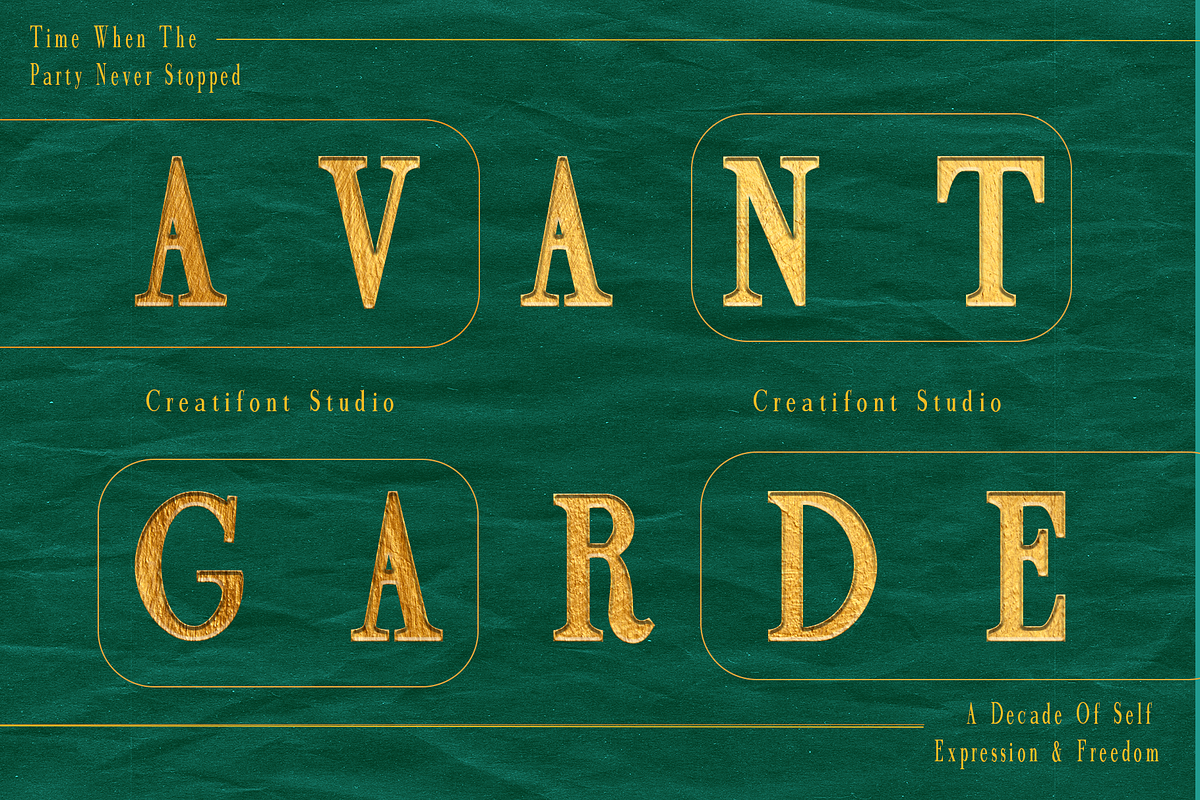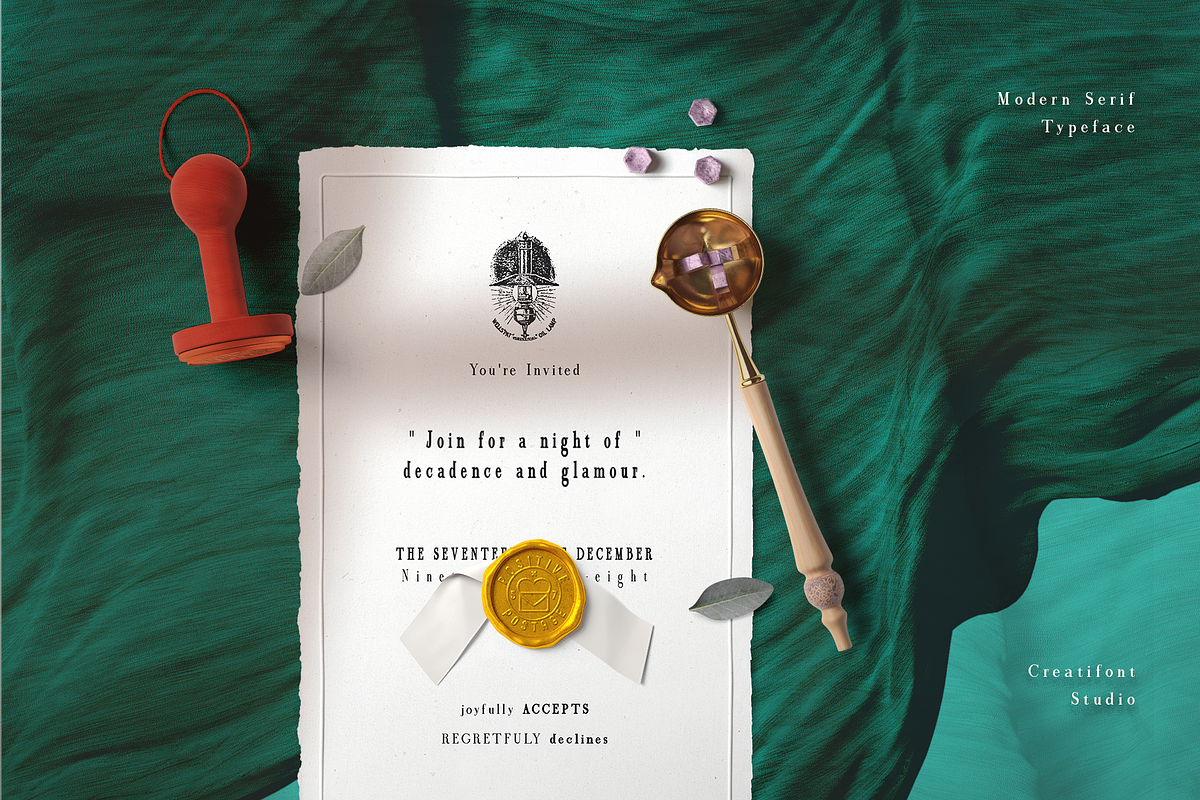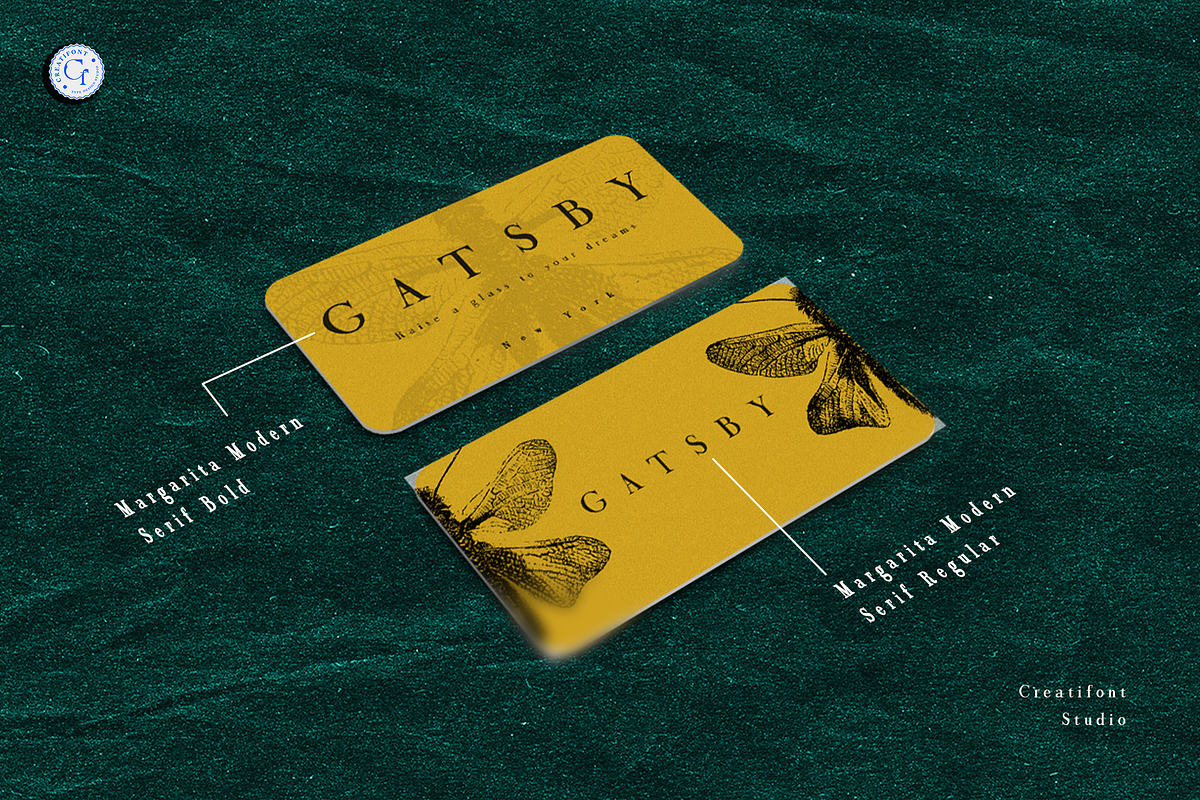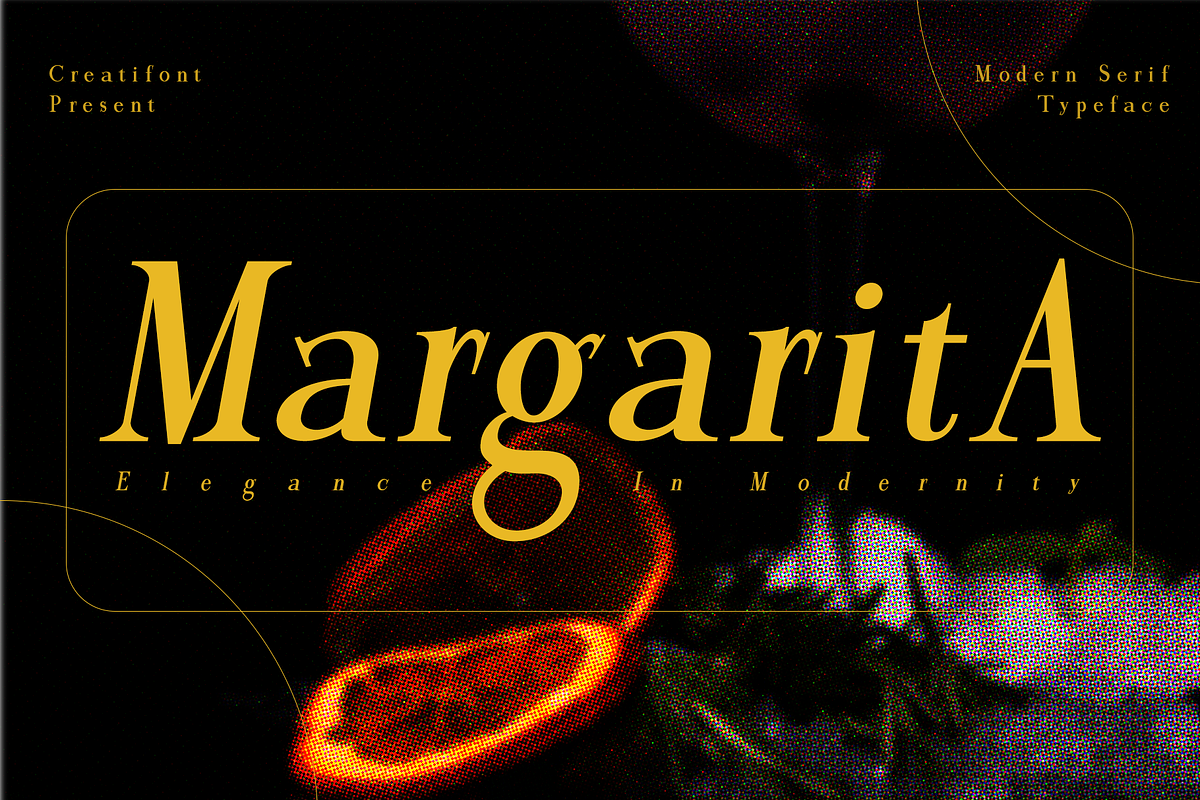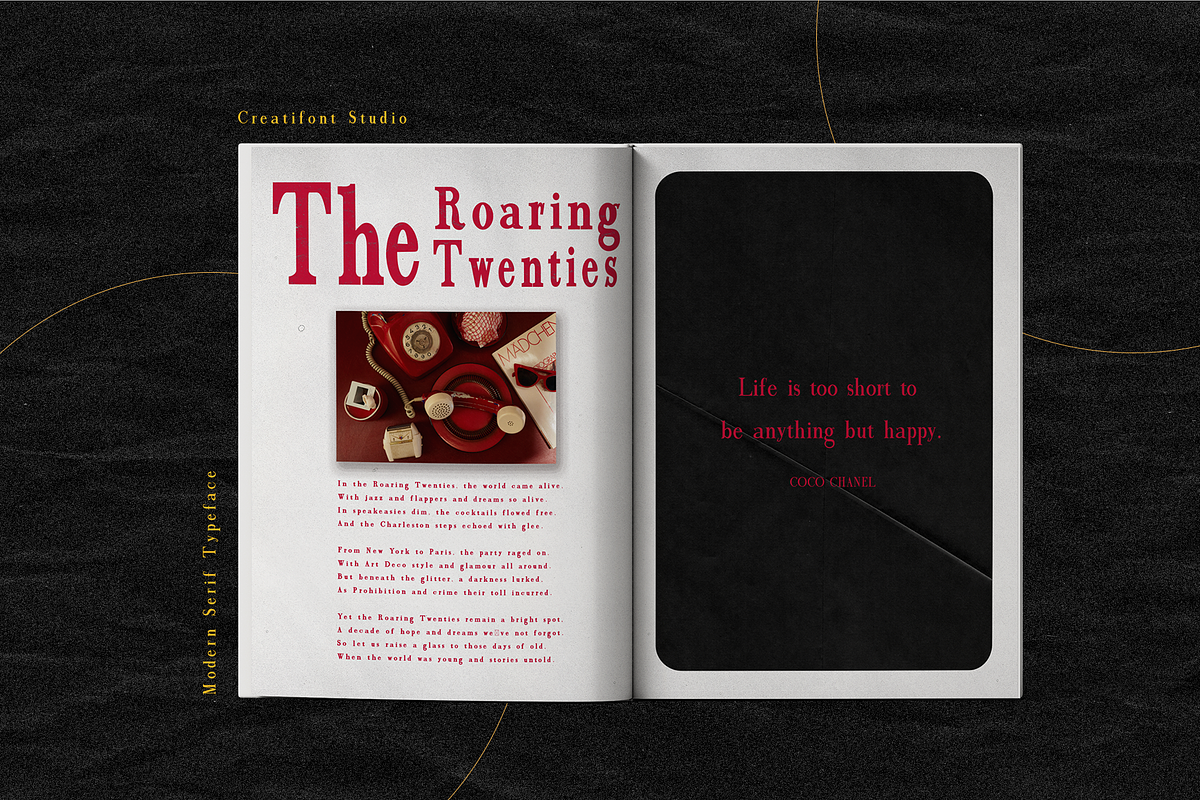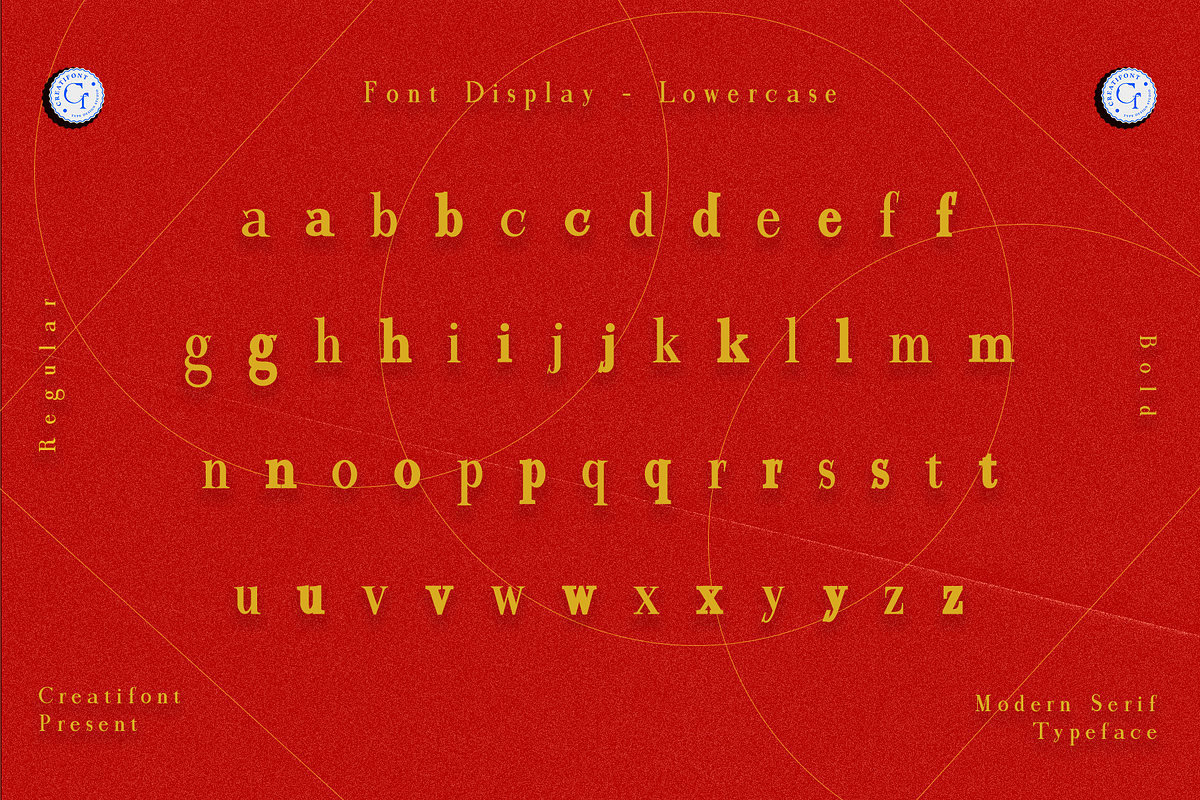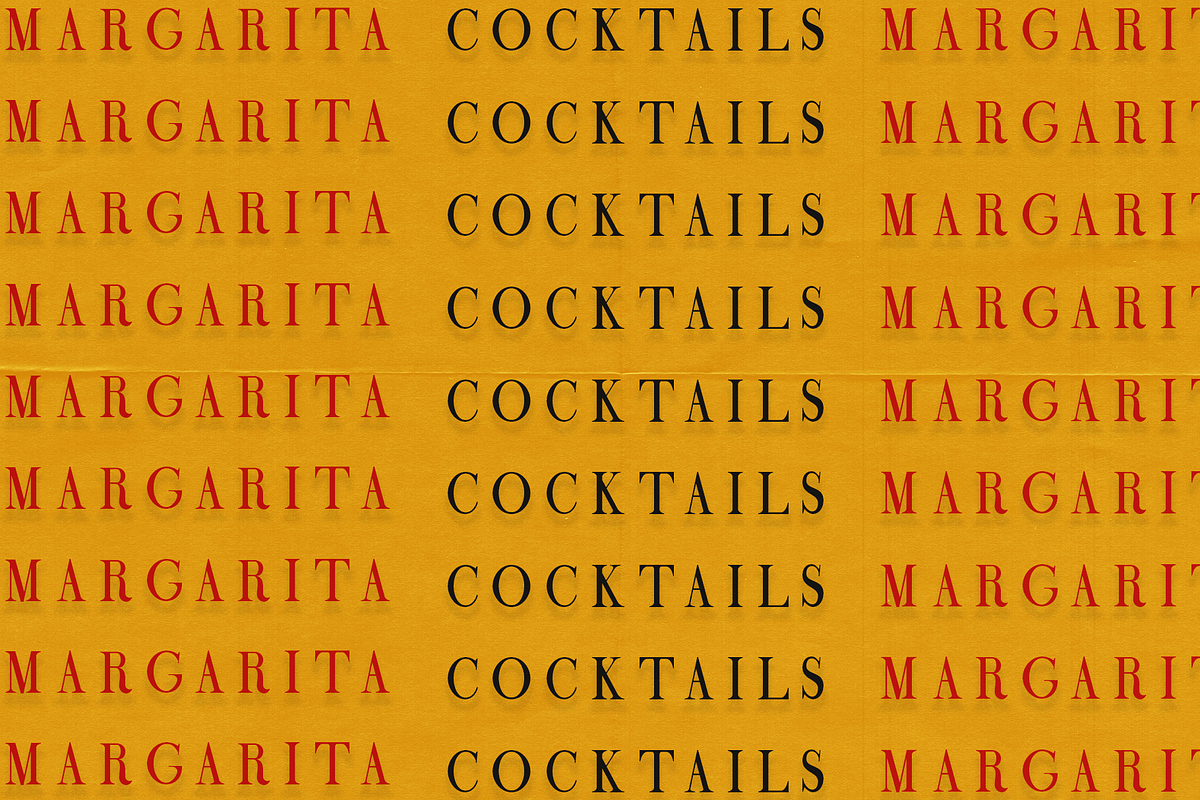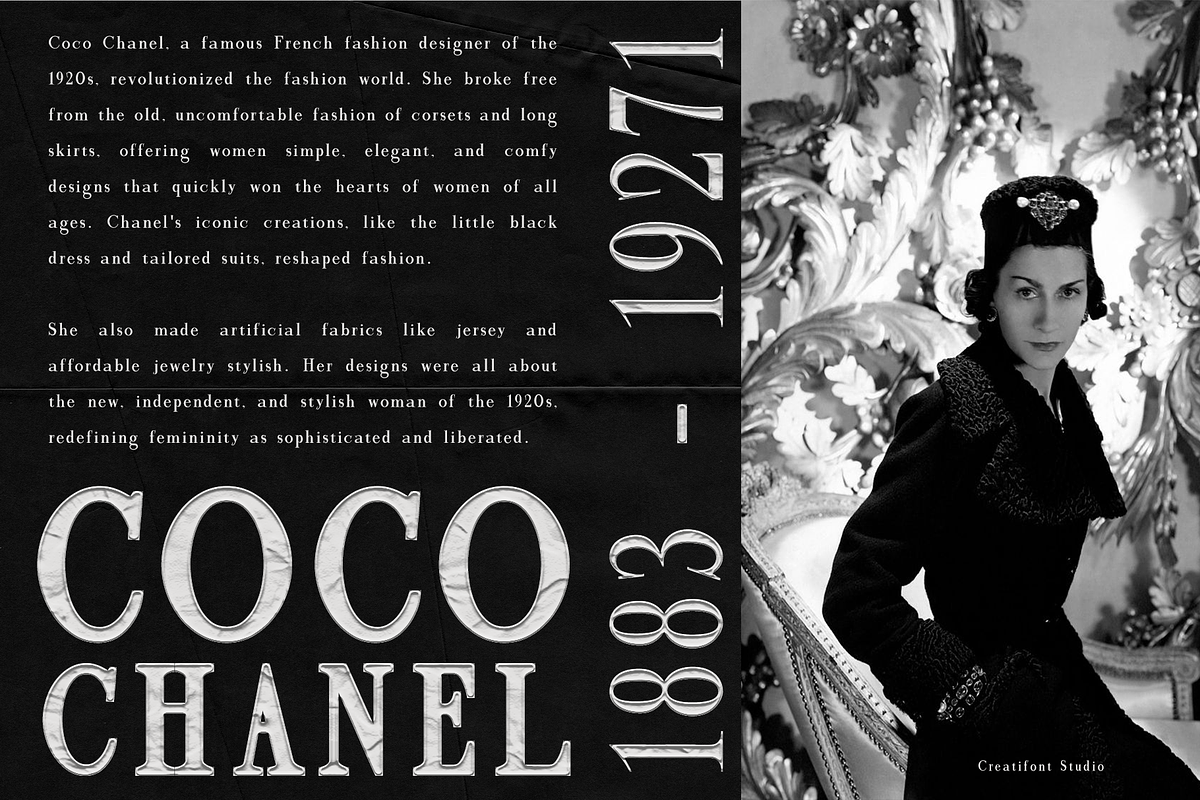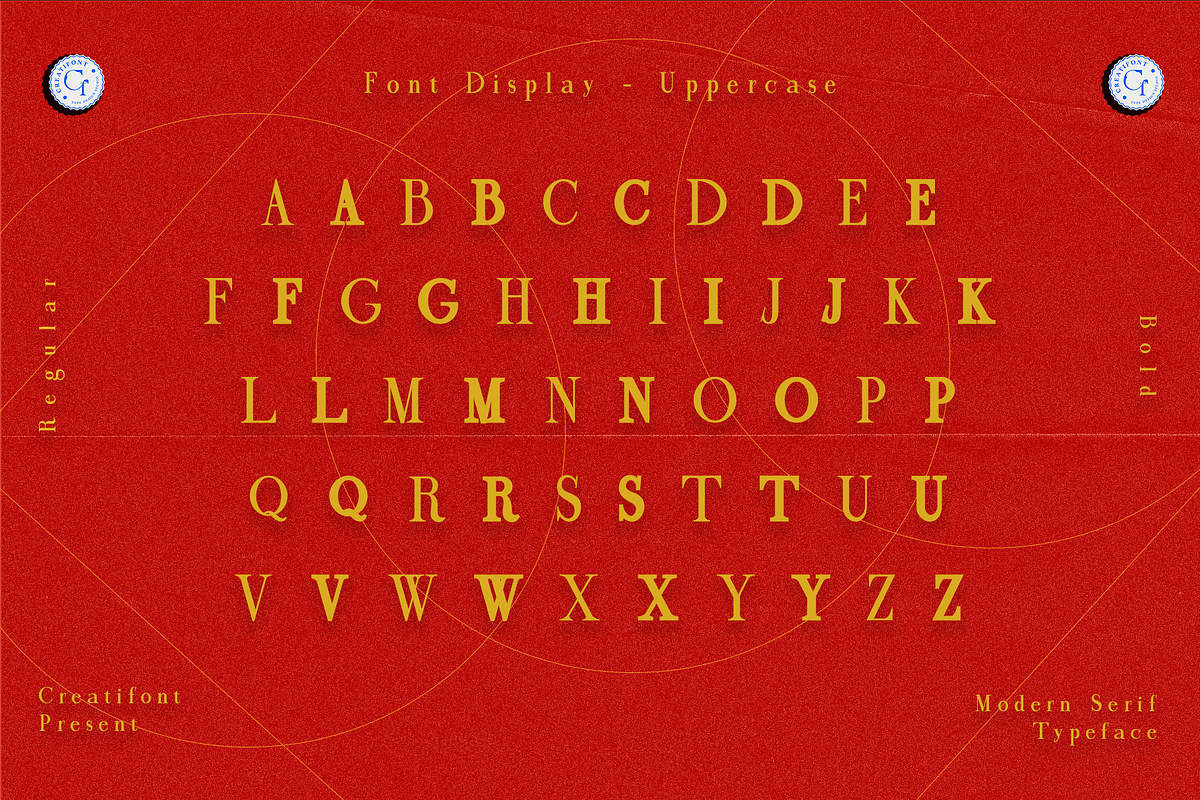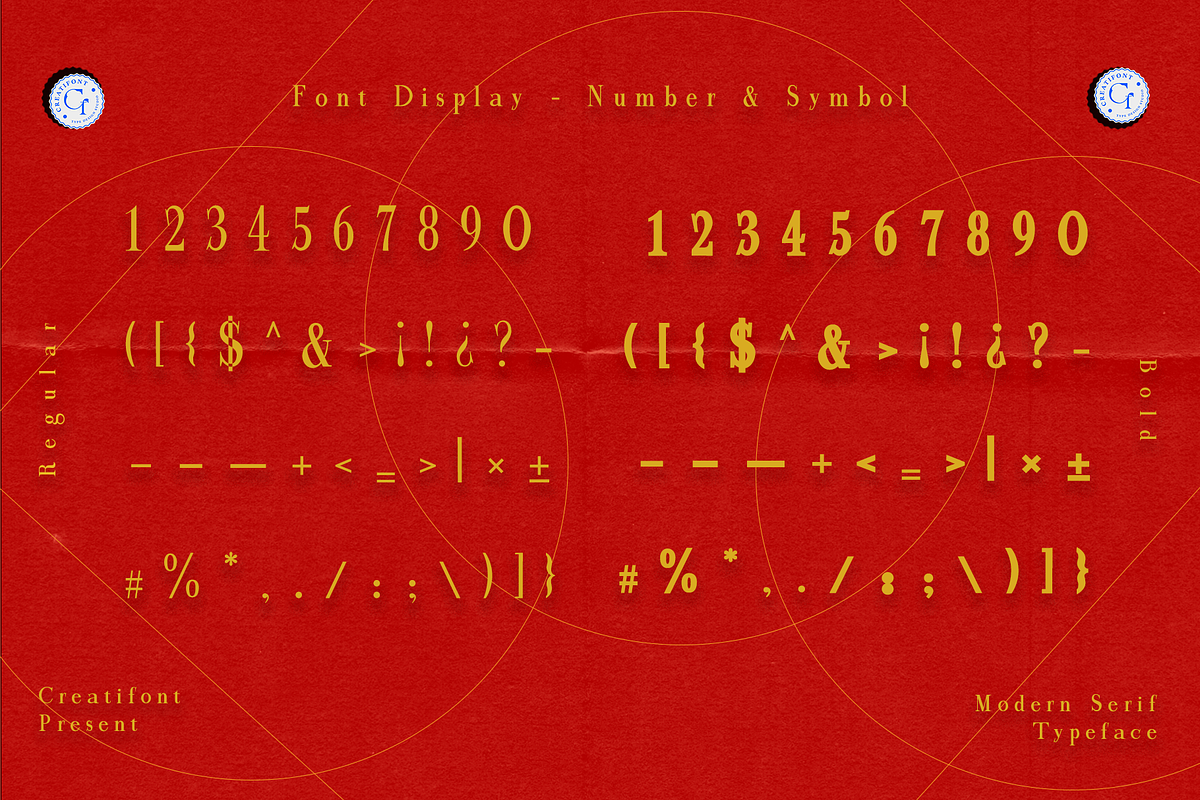
CF Margarita - Modern Serif
Margarita - a stunning font that effortlessly blends the elegance of serif typography with a distinct touch of modernity. Its sleek, elongated serifs and graceful letterforms exude sophistication and refinement, making it a perfect choice for projects that require a balance of classic and contemporary aesthetics. It is suitable for creating designs such as packaging, logos, or titles.